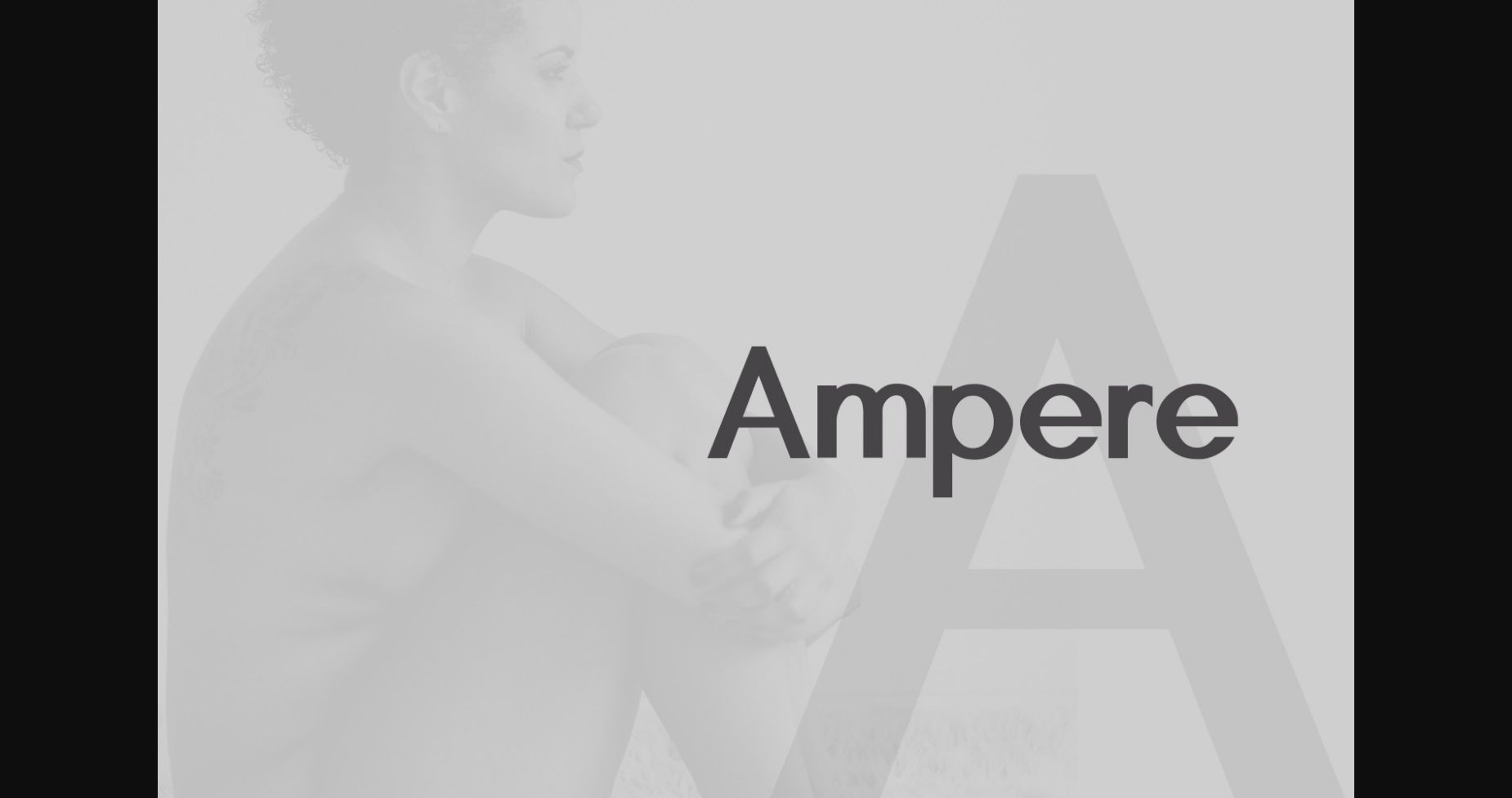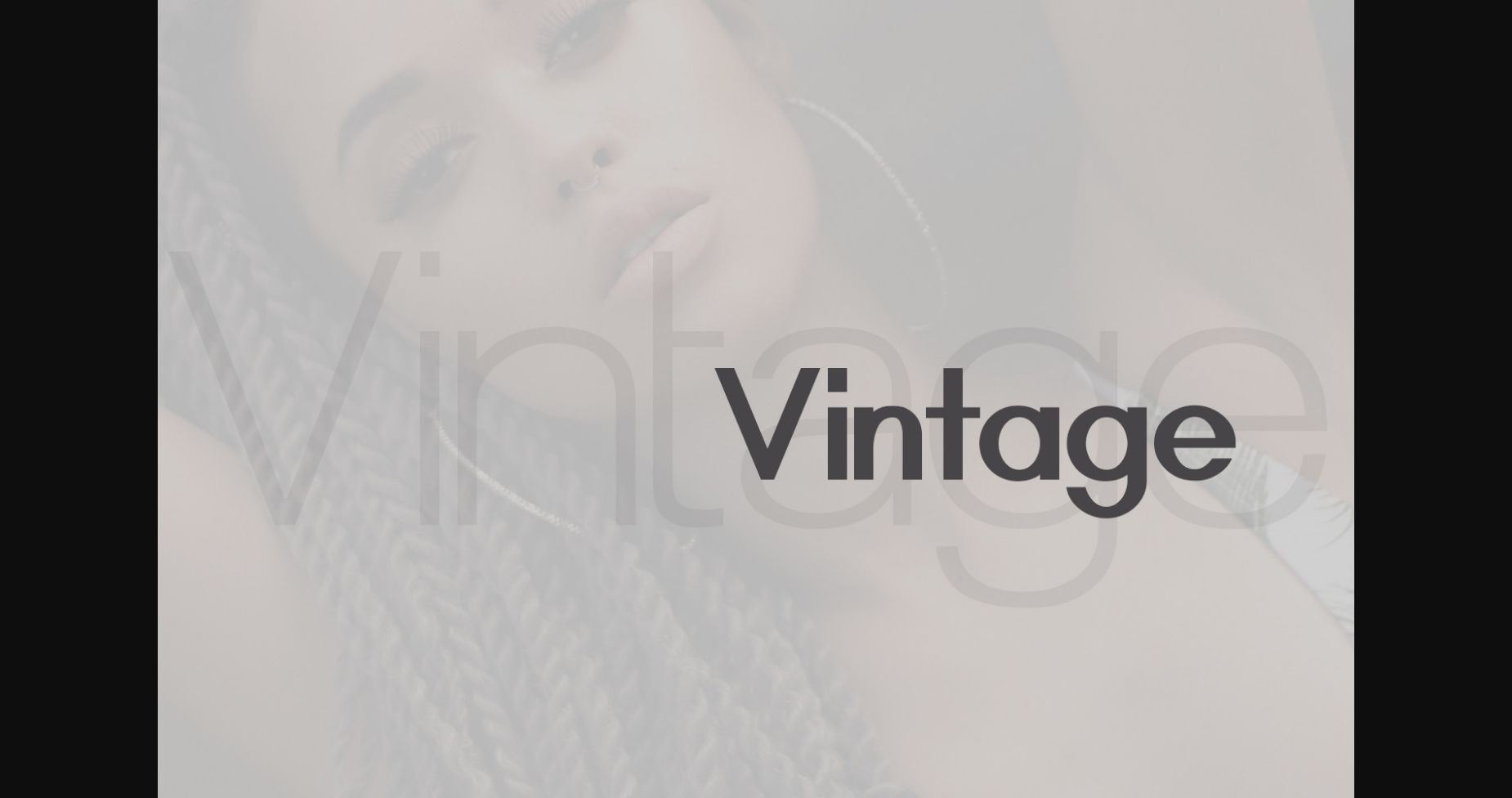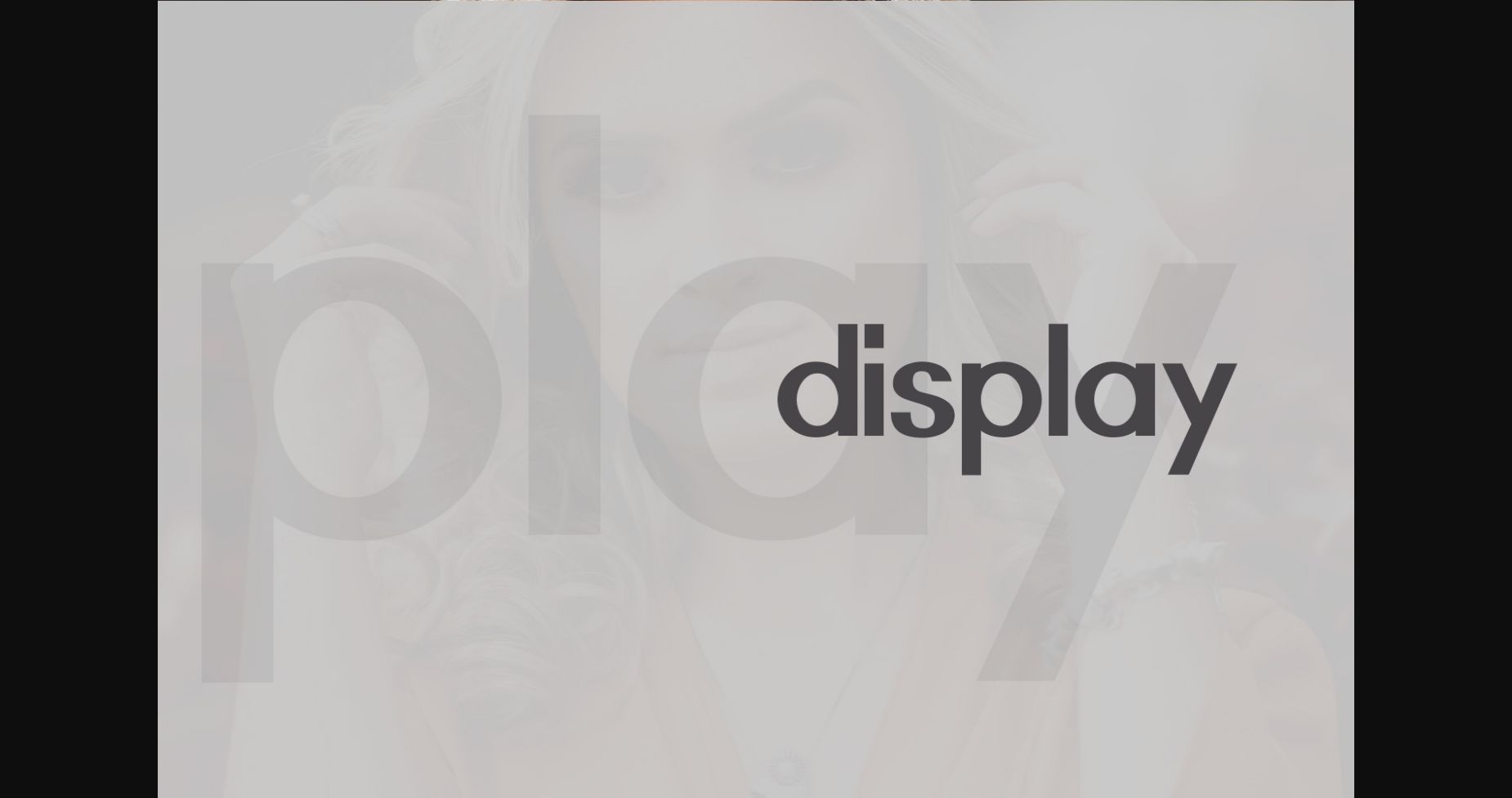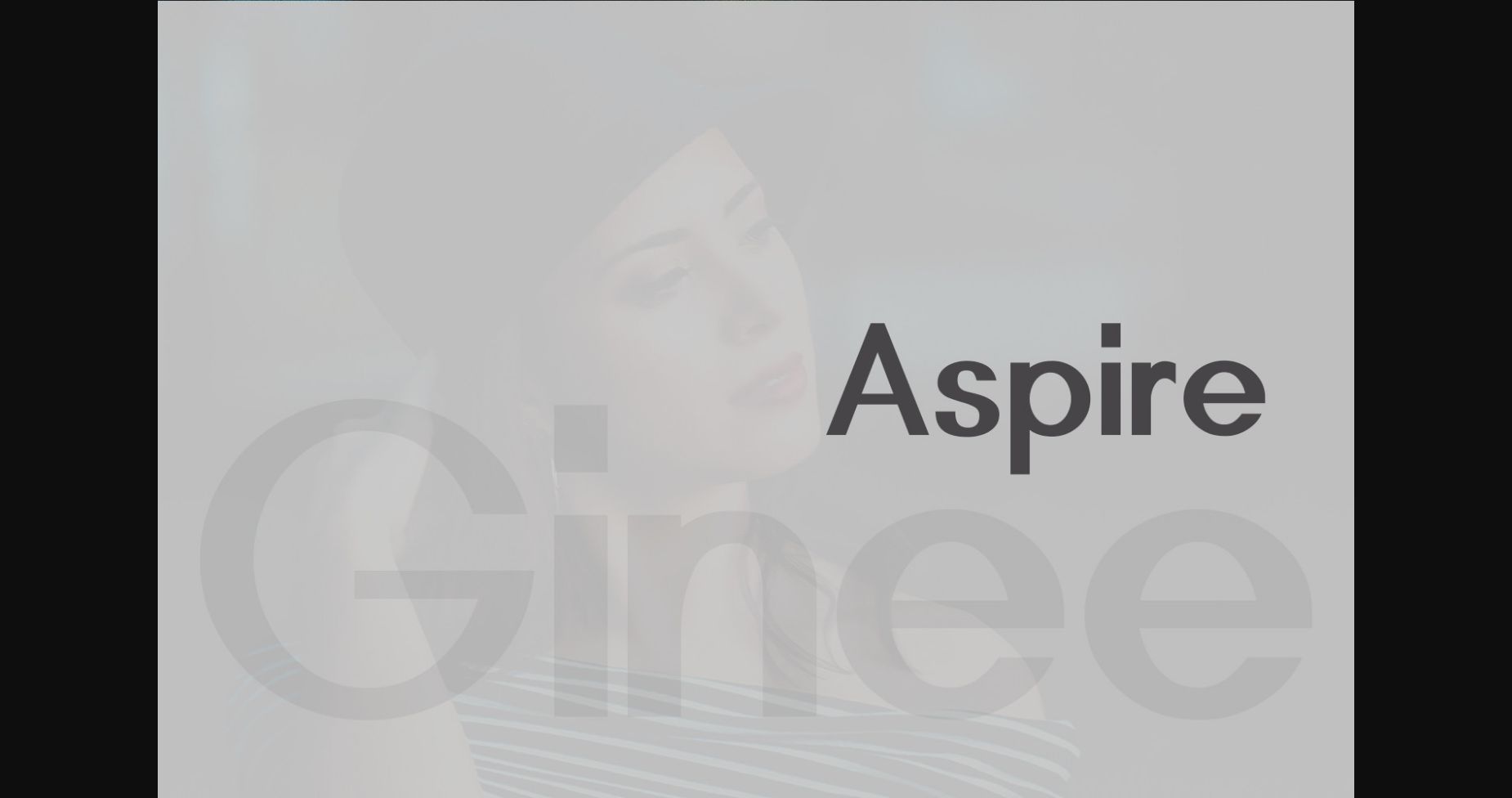
Ampere is a modern sans serif font. Ampere will look outstanding in any context, whether it’s being used on busy backgrounds or as a standalone headline!